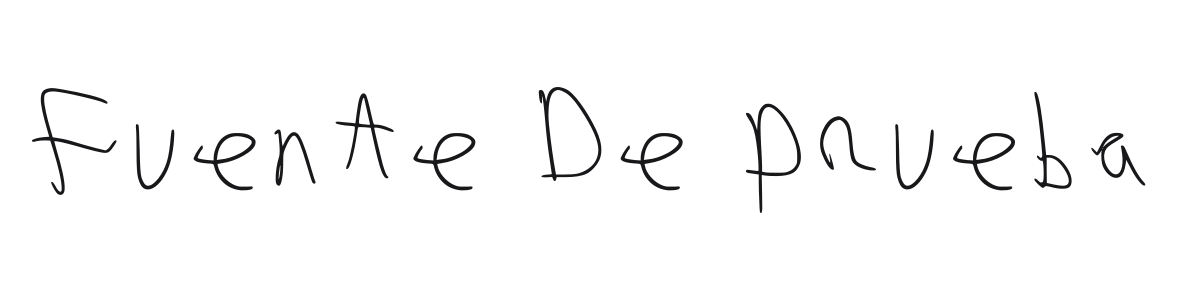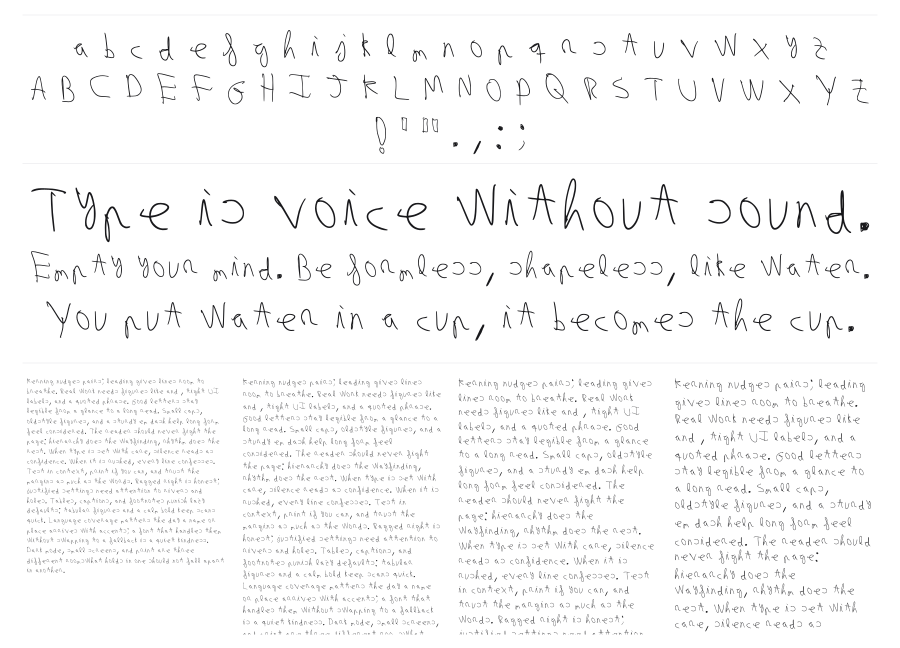
Fuente De Prueba
by Alma Fdez
Fuente De Prueba is a casual handwritten script that looks pulled straight from a personal notebook. Thin, wispy strokes and irregular letter shapes give it an unfiltered, spontaneous quality that feels genuinely hand-drawn rather than designed. It works best at larger sizes where that looseness reads as charm.